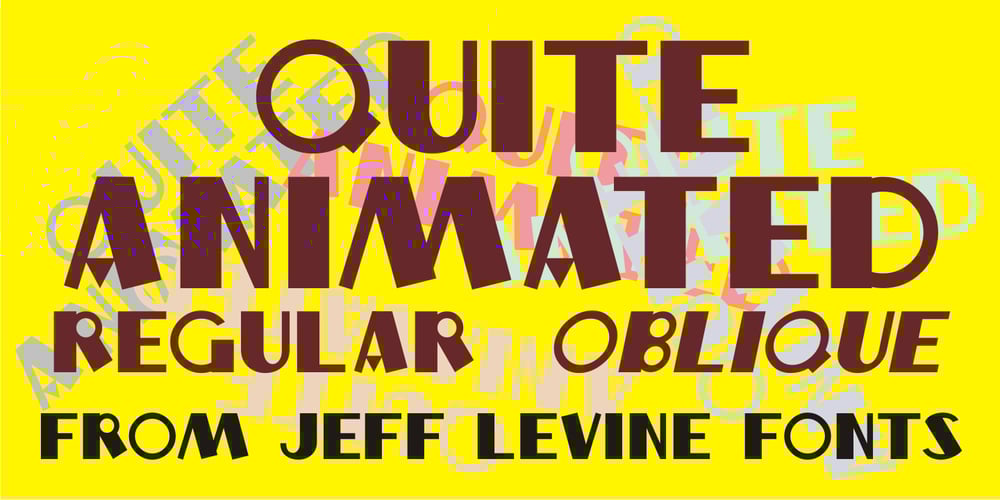
Quite Animated JNL
Quite Animated JNL font
Quite Animated JNL Font Family was designed by Jeff Levine and published by Jeff Levine. Quite Animated JNL contains 2 styles and family package options. Quite Animated JNL is based on hand-lettered Art Deco titling for a 1930 advertisement promoting a group of Columbia Pictures cartoons featuring George Herriman’s “Krazy Kat”. Available in regular and oblique versions.